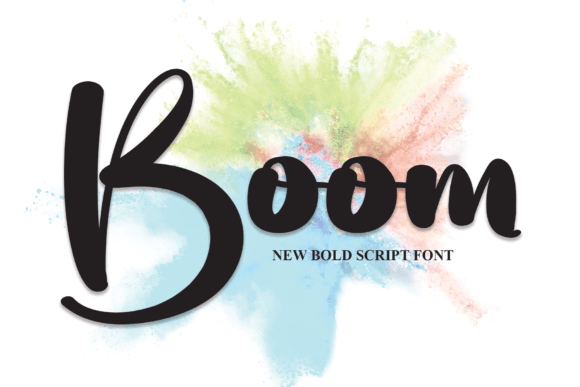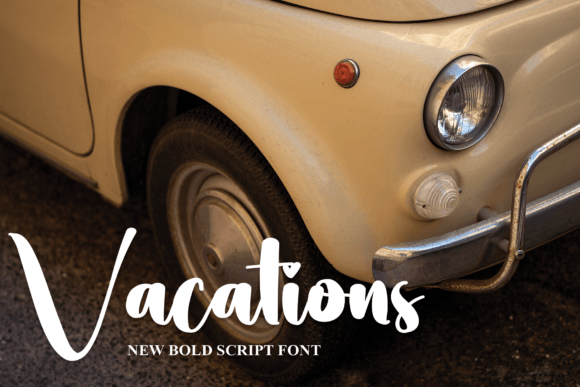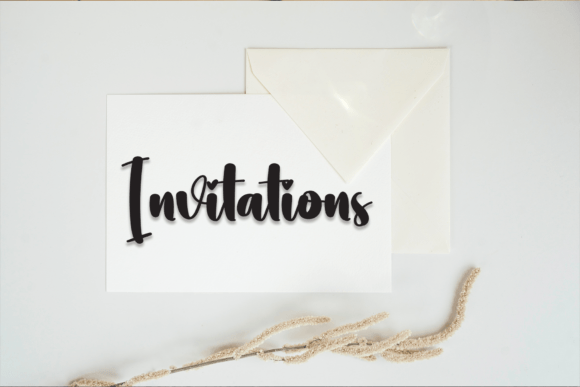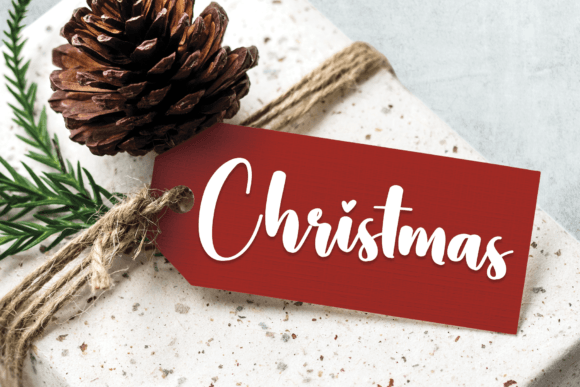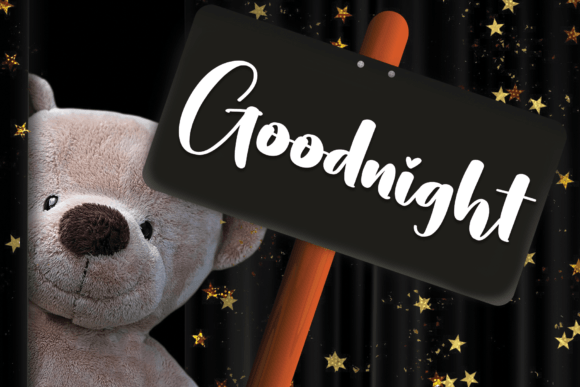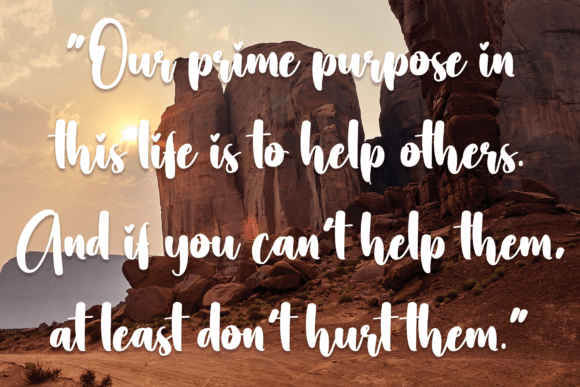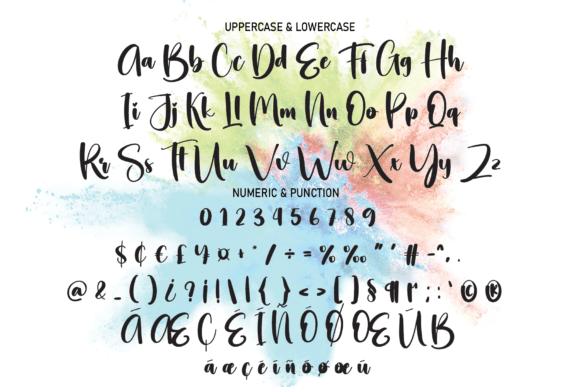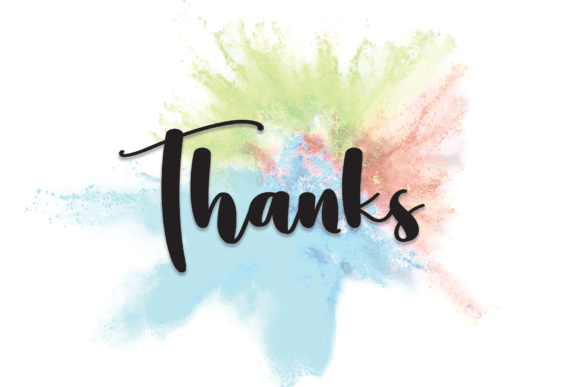
Boom Font
About Boom Font
“Boom’s” latest style letters offer a dynamic and expressive handwritten font that is ideal for a wide range of design applications. Whether you’re creating wall displays, wedding invitations, social media post logos, advertisements, product packaging, product designs, labels, photography watermarks, invitations, stationery, or any project that calls for a handwritten touch, “Boom’s” has you covered.
The appeal of “Boom’s” lies in its ability to convey a sense of energy and creativity. Each character is thoughtfully designed to exude a handwritten and dynamic vibe, making it an ideal choice for projects where you want to create a visually engaging and expressive impression. This font allows you to add a touch of vibrancy and flair to your content.
For branding, product designs, promotional materials, and various design applications, “Boom’s” provides the creative freedom to make your projects stand out. Its handwritten style can enhance the visual appeal of your designs and effectively communicate your message to your audience.
In summary, “Boom’s” latest style letters are a valuable font choice that brings energy and creativity to your projects. Its handwritten and dynamic script style makes it suitable for a variety of applications, and its ability to convey vibrancy and expression sets it apart. With “Boom’s” in your font collection, your design projects will exude a sense of creativity and authenticity that leaves a lasting impression.